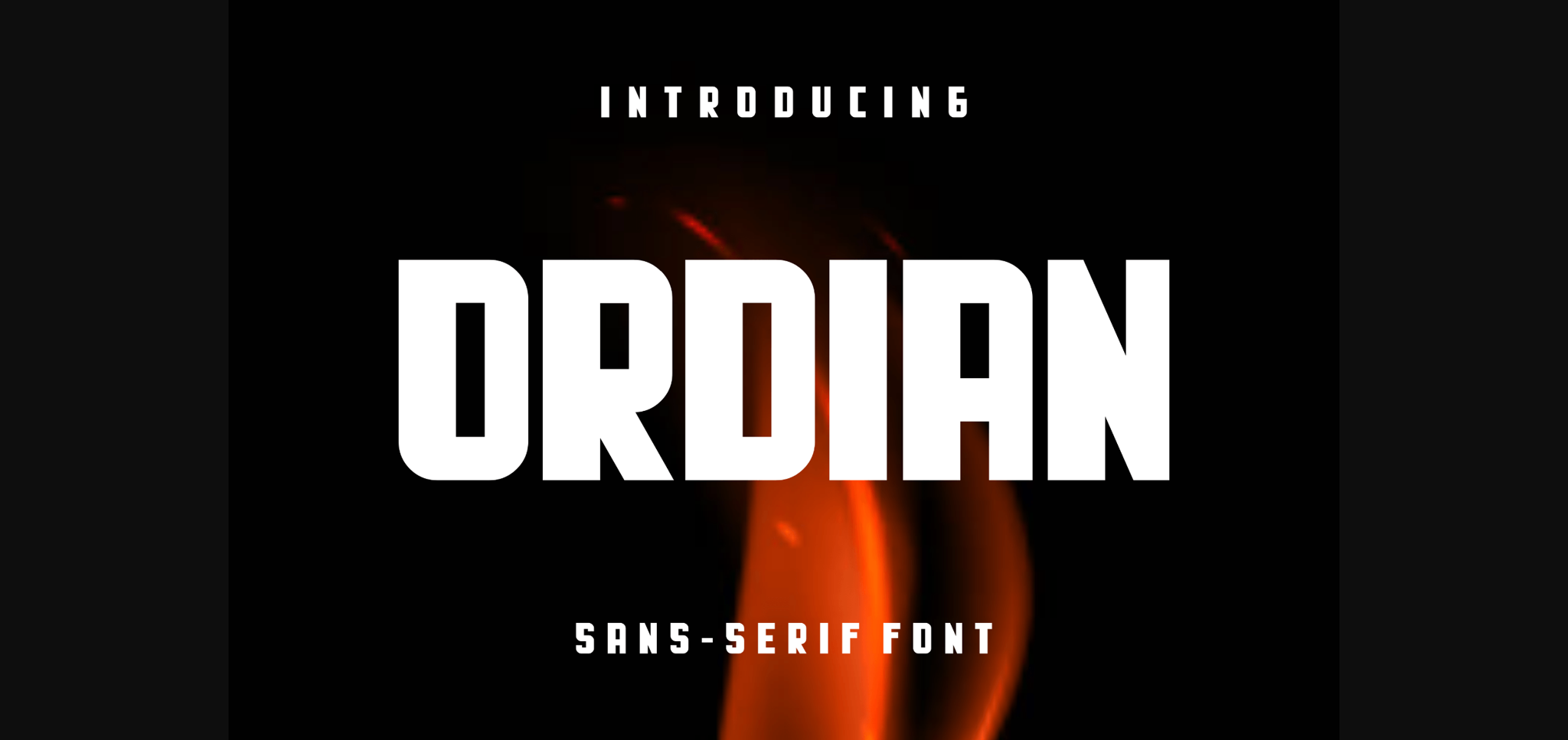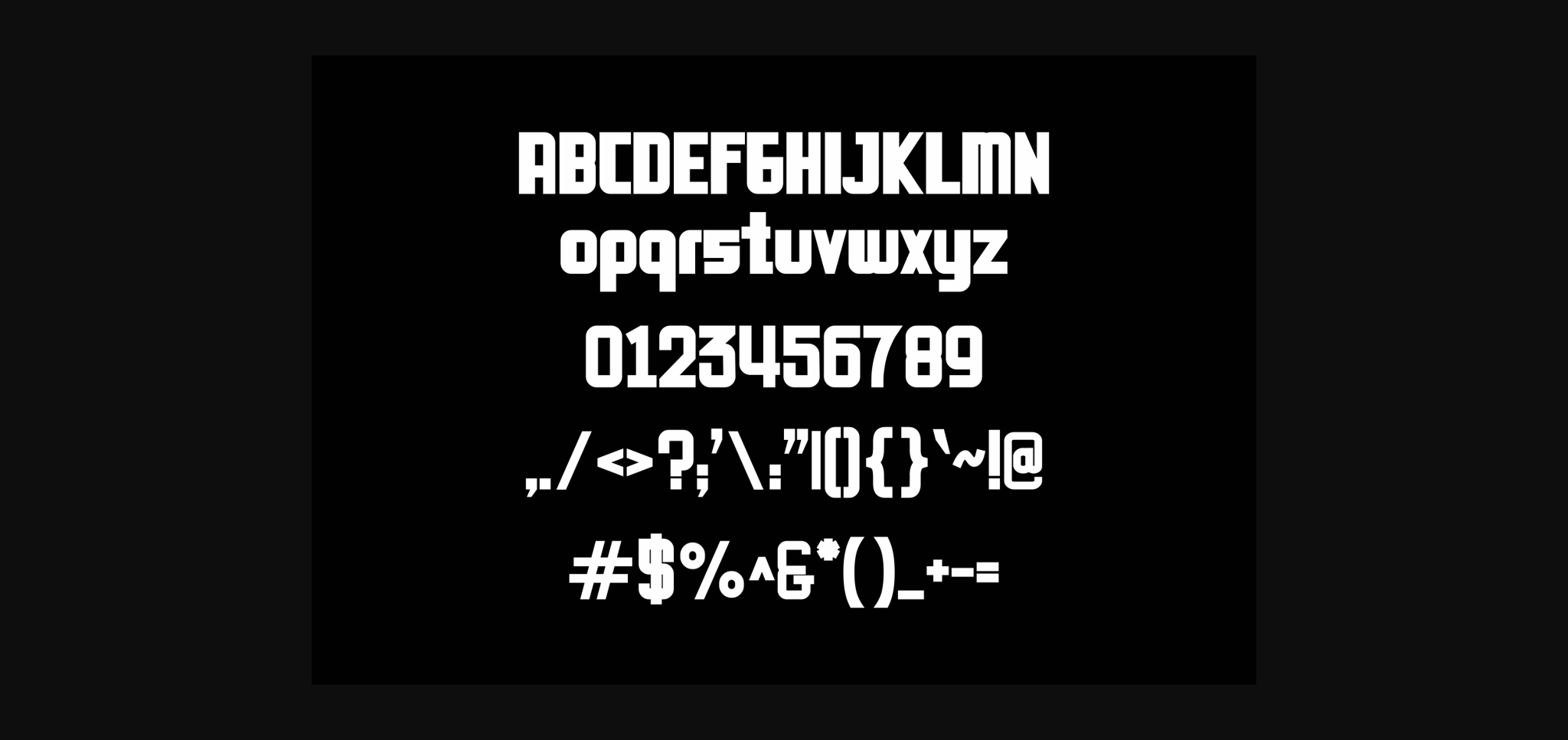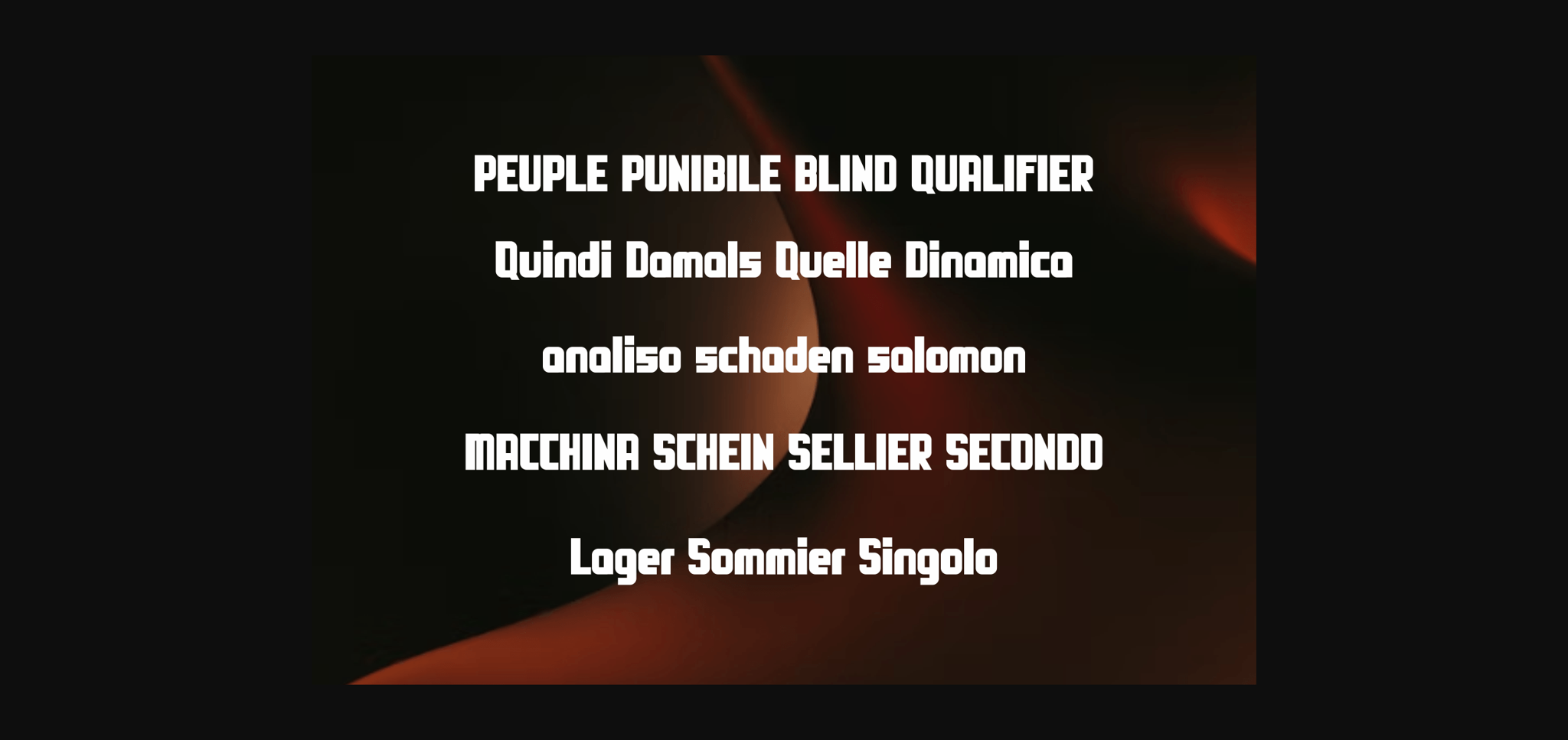
HomeSans Serif FontsOrdian Font Sans Serif Fonts Ordian Font FacebookXPinterestWhatsApp 1 of 5 ... Ordian Font Poster 2... Ordian Font Poster 3... Ordian Font Poster 4... Ordian Font Poster 5... About Ordian Font Ordian is a cool and modern sans serif font. No matter the topic, this font will be an incredible asset to your fonts’ library, as it has the potential to elevate any creation. DOWNLOAD NOW People also explored Retha Font Heland Font Heather Peach Unisex T-Shirt Mockup Photo Right Font Shamrock Font Billiard Font Christmas Font Hellocat Font Olivia Megan Font 401 0 TagsOrdianOrdian Font Previous articleMugensu FontNext articleBaramo Font LEAVE A REPLY Cancel reply Comment: Please enter your comment! Name:* Please enter your name here Email:* You have entered an incorrect email address! Please enter your email address here Website: Save my name, email, and website in this browser for the next time I comment. Personal Use Free Hallo Betty Personal Use Free Read more about this font Solaria Personal Use Free Read more about this font Adelia Font Personal Use Free Read more about this font Morning Miow Personal Use Free Read more about this font BLOG How to Cut Any Font on Cricut: Convert a Font to SVG (Free) Turn any font into a clean SVG so it cuts crisp on Cricut - a quick 3-step workflow using a free font-to-SVG tool. The 10 Best Handwriting Fonts to Add Personality to Your Designs Exploring Font Trends Modern Sans-Serif Fonts That Brands Love in 2025